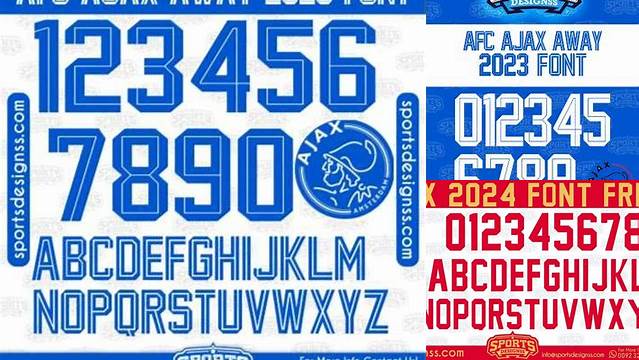
AFC Ajax 2026 Font: Free Download Guide
Alright, guys, ever been captivated by the sleek, modern font used by AFC Ajax, especially the one anticipated for the 2026 season? It's not just about the game; it's about the aesthetic, the branding, and that unique visual identity that makes the club stand out. In this article, we're diving deep into how you can snag that AFC Ajax 2026 font for free. Whether you're a designer, a die-hard fan, or just someone who appreciates a good-looking typeface, this guide is for you. We'll cover everything from where to find it, how to download it safely, and even how to use it in your projects. So, let's get started and add that touch of Ajax class to your creative endeavors!
AFC Ajax Font History
Let's kick things off with a quick journey through the history of AFC Ajax fonts. Over the years, the club's visual identity has evolved, and the font used on jerseys, merchandise, and official communications has played a significant role. From classic, blocky designs to more modern and streamlined typefaces, each font has reflected the era and the club's ambitions. Understanding this history gives you a greater appreciation for the current and future fonts, including the highly anticipated AFC Ajax 2026 font. Think of it as a visual timeline, each font a chapter in the club's storied legacy. For instance, early fonts were often simpler, prioritizing legibility and a sense of tradition. As design trends evolved, so did Ajax's fonts, incorporating more contemporary elements while still maintaining a connection to the club's heritage. This evolution is a testament to Ajax's commitment to staying relevant and visually appealing in a rapidly changing world. So, when you finally get your hands on that AFC Ajax 2026 font, you'll know you're holding a piece of history in your digital hands!
Identifying the AFC Ajax 2026 Font
Okay, so how do we pinpoint exactly what the AFC Ajax 2026 font looks like? Well, the first step is keeping an eye on official announcements from the club. Ajax usually reveals new fonts along with their new kits or branding campaigns. Social media, official websites, and press releases are your best friends here. But, what if you're trying to identify a font from an image or video? There are some cool online tools that can help. Websites like WhatTheFont! and Font Matcherator allow you to upload an image, and they'll analyze the font and suggest matches. Keep in mind that the 2026 font might be a custom design, meaning it won't be available as a standard typeface. In that case, you might need to find a similar font or even commission a designer to recreate it. The key is to be observant and resourceful. Scour the internet, check out fan forums, and don't be afraid to ask around. With a little detective work, you'll be able to identify the AFC Ajax 2026 font and be one step closer to getting your hands on it. Remember, patience is key! These things often take time, especially if it's a brand-new design.
Using the Font in Design Projects
Okay, so you've got the AFC Ajax 2026 font installed and ready to go. Now, let's talk about how to actually use it in your design projects! The key here is to think about context and purpose. Are you designing a banner for a fan club, creating a mock-up of a jersey, or working on a personal project? The way you use the font will depend on the specific application. If you're using it for a headline or title, make sure it's legible and eye-catching. Experiment with different sizes, weights, and colors to see what works best. If you're using it for body text, prioritize readability. Choose a size and weight that's comfortable to read, and pay attention to line spacing and kerning. Remember, the AFC Ajax font is likely to have a sporty, modern feel, so use it in projects where that aesthetic is appropriate. Think about incorporating it into designs for sports-related content, branding materials, or even personal projects like posters or social media graphics. And don't be afraid to experiment! Try pairing it with different fonts to create a unique and interesting look. The possibilities are endless, so have fun and let your creativity shine!
Pairing the AFC Ajax 2026 Font
One of the coolest things about using a unique font like the AFC Ajax 2026 font is figuring out what other fonts it plays well with. Font pairing is an art, but it doesn't have to be intimidating! The goal is to find fonts that complement each other, creating a visually appealing and balanced design. Since the AFC Ajax font is likely to be modern and sporty, consider pairing it with a classic sans-serif font for body text. Fonts like Helvetica, Arial, or Open Sans can provide a clean and readable contrast. If you want to add a bit more personality, try pairing it with a slightly more decorative sans-serif font, like Montserrat or Lato. For headlines or titles, you can experiment with bolder and more eye-catching fonts. Think about using a condensed font to create a sense of height and drama, or a geometric font to complement the modern feel of the AFC Ajax font. Remember, the key is to create a visual hierarchy. Use different fonts to guide the viewer's eye and highlight important information. And don't be afraid to break the rules! Experiment with different combinations until you find something that you love. With a little creativity, you can create stunning designs that showcase the AFC Ajax font in all its glory!
Alternatives to the Official Font
Alright, let's be real. Sometimes getting your hands on the official AFC Ajax 2026 font can be tough. It might be a custom design, or it might not be available for public use. But don't worry, there are plenty of alternatives out there that can capture a similar vibe! When you're looking for a substitute, think about the characteristics of the AFC Ajax font. Is it modern? Sporty? Geometric? Look for fonts that share those qualities. Some great options include fonts like Bebas Neue, Montserrat, and Lato. These fonts have a clean, contemporary feel that works well in a variety of design projects. Another approach is to look for fonts that are specifically designed for sports or athletic branding. These fonts often have a bold, dynamic look that can add a sense of energy to your designs. And don't forget about Google Fonts! It's a fantastic resource for free, high-quality fonts that you can use in your projects without worrying about licensing issues. The key is to experiment and find a font that you love and that fits the overall aesthetic of your design. With a little creativity, you can create stunning designs even without the official AFC Ajax font!
So there you have it, guys! A comprehensive guide to finding, downloading, and using the AFC Ajax 2026 font. From understanding the club's font history to exploring alternative options and ensuring safe download practices, we've covered all the bases. Remember, whether you're a designer looking to add a touch of Ajax flair to your projects or a die-hard fan wanting to show your support, the right font can make all the difference. Keep an eye on official announcements, explore font repositories, and don't be afraid to get creative with font pairings and customization. And most importantly, always prioritize safety and respect font licensing. With a little patience and a lot of enthusiasm, you'll be well on your way to mastering the AFC Ajax 2026 font and bringing your creative visions to life. Now go out there and make some typographic magic happen! Good luck, and have fun!